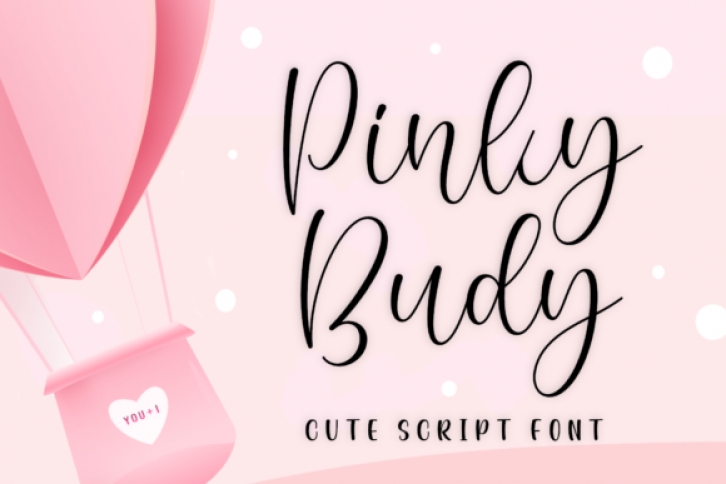
Pinky Budy is a cute script font designed in a semi-curly style and a delicate touch. It is suitable for your design projects, be it cute flyers, animations, posters, birthday cards, books, mugs and many more.